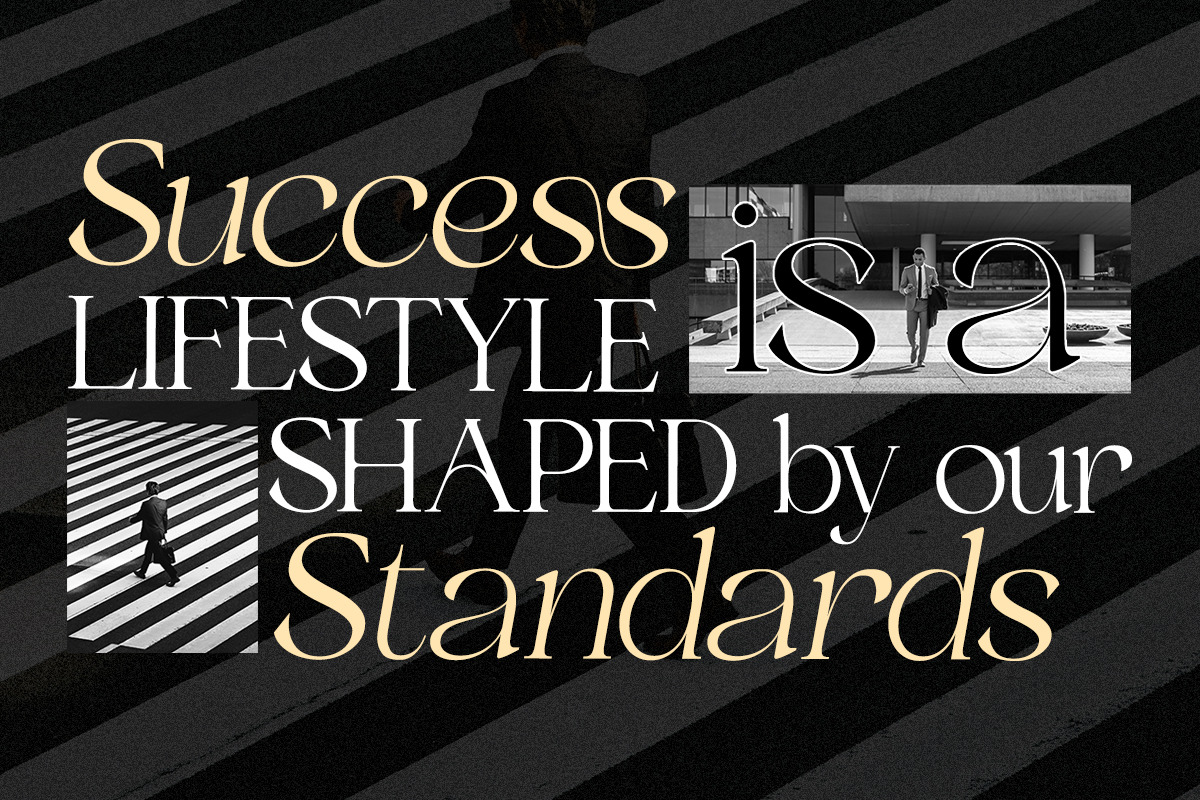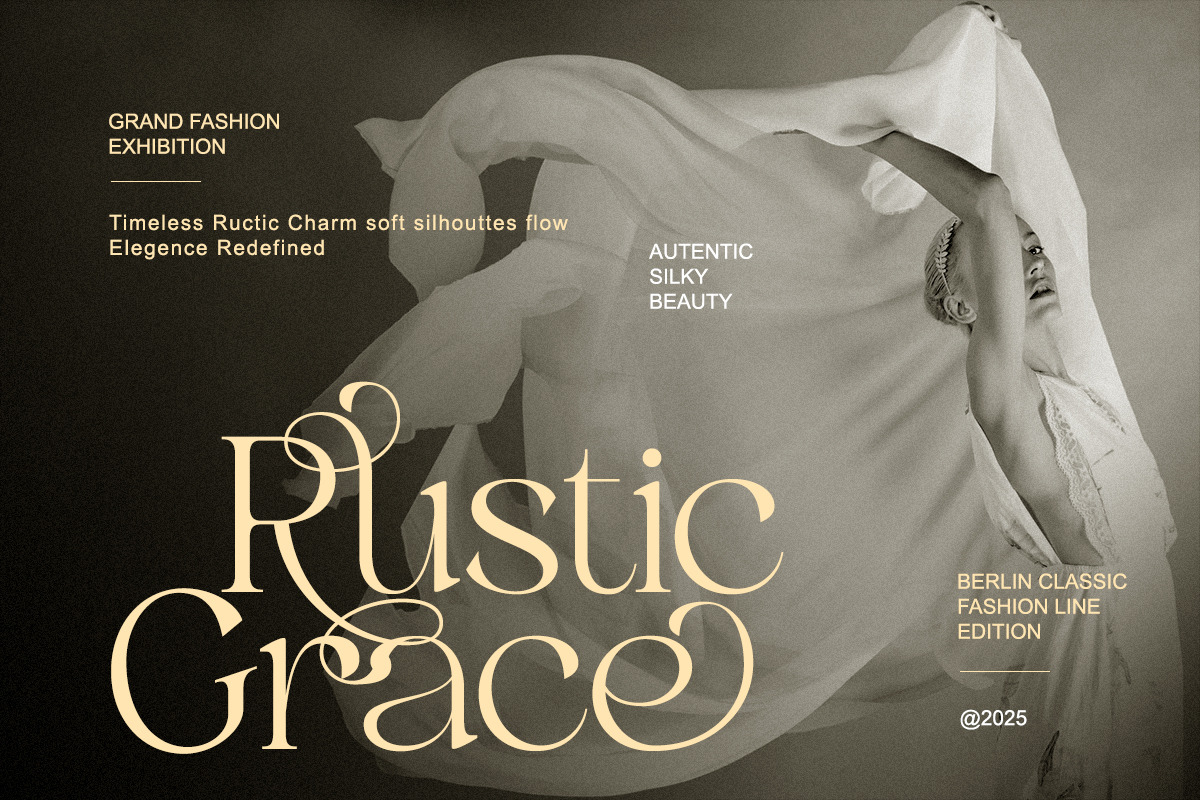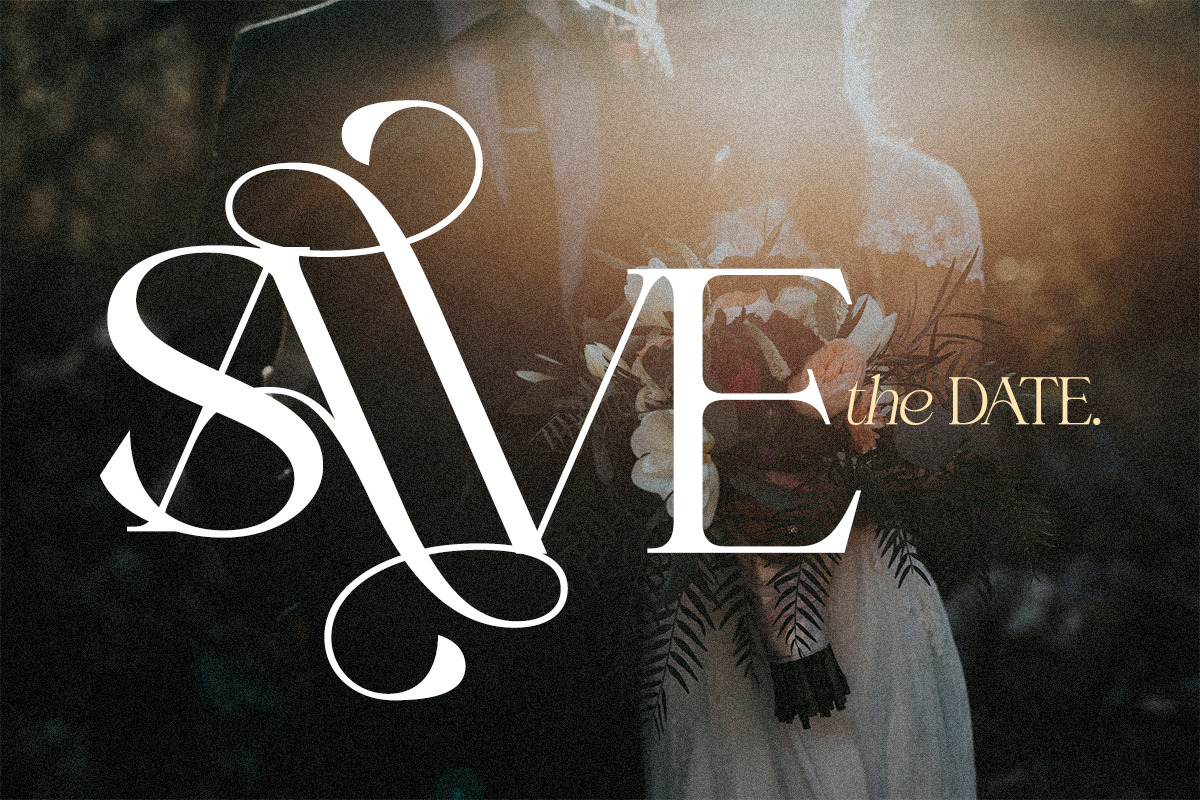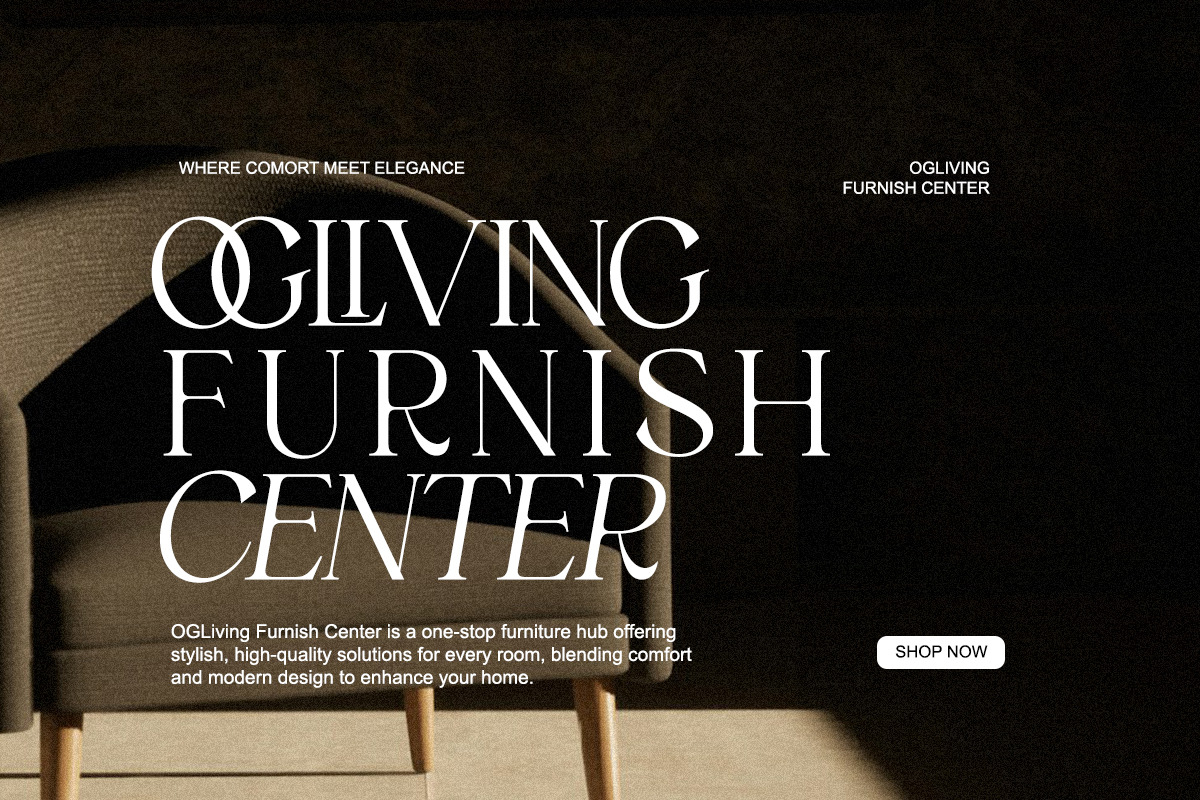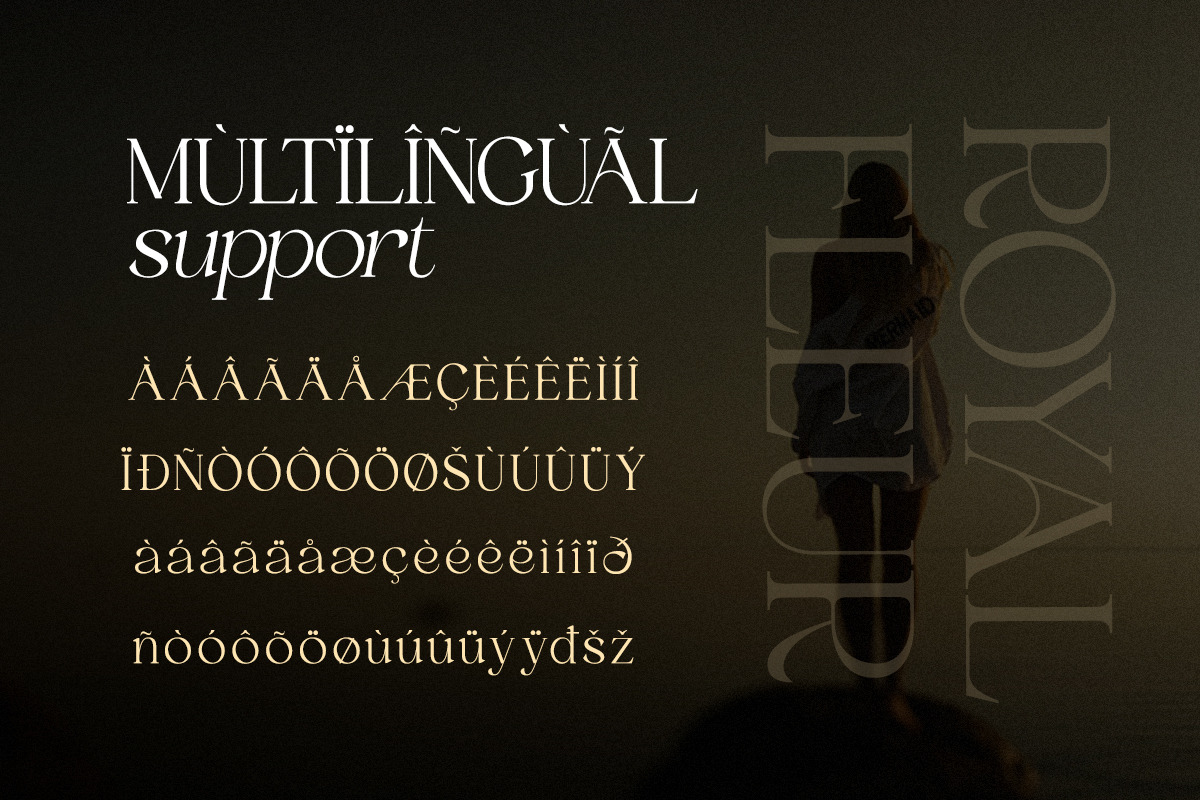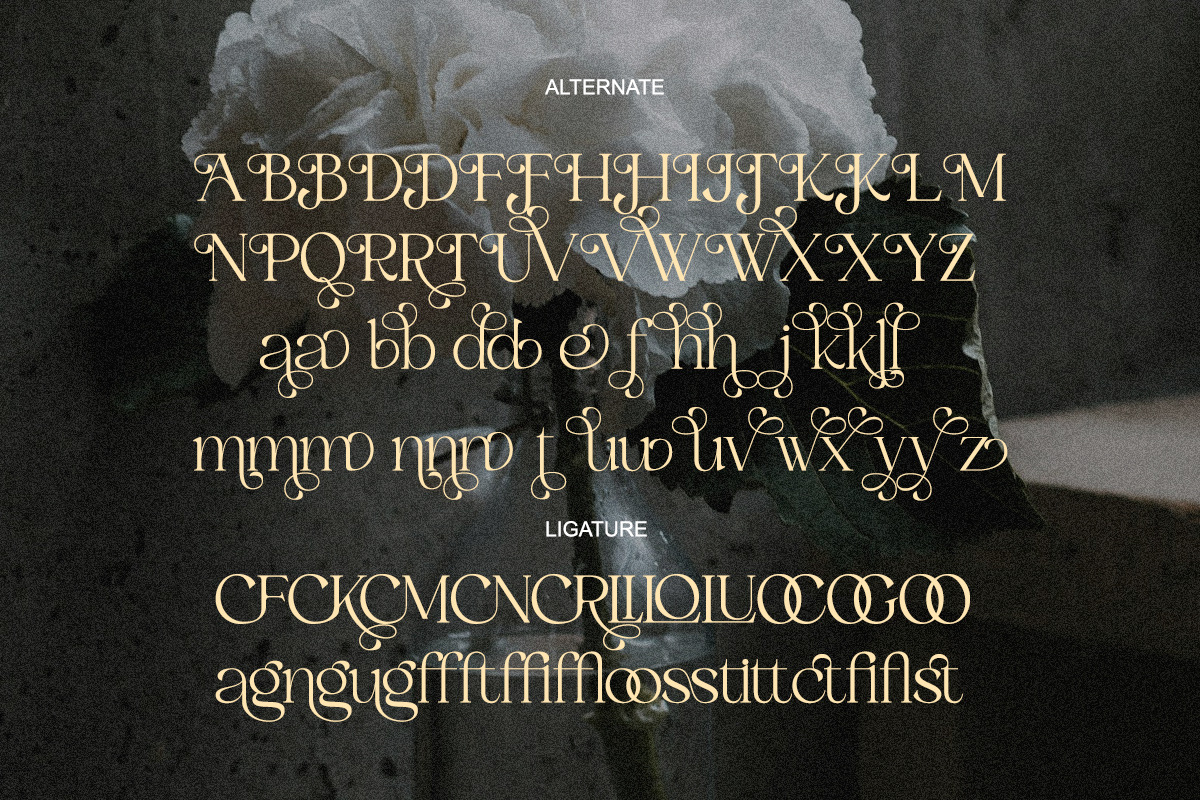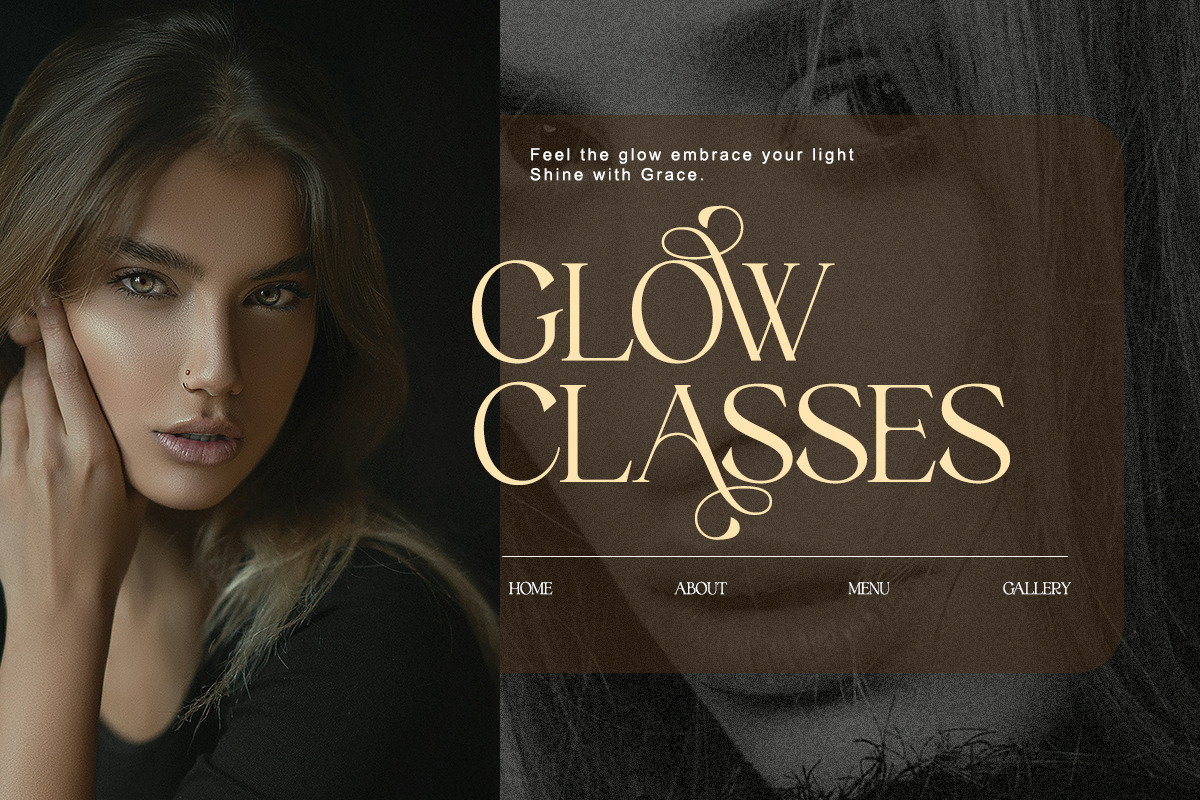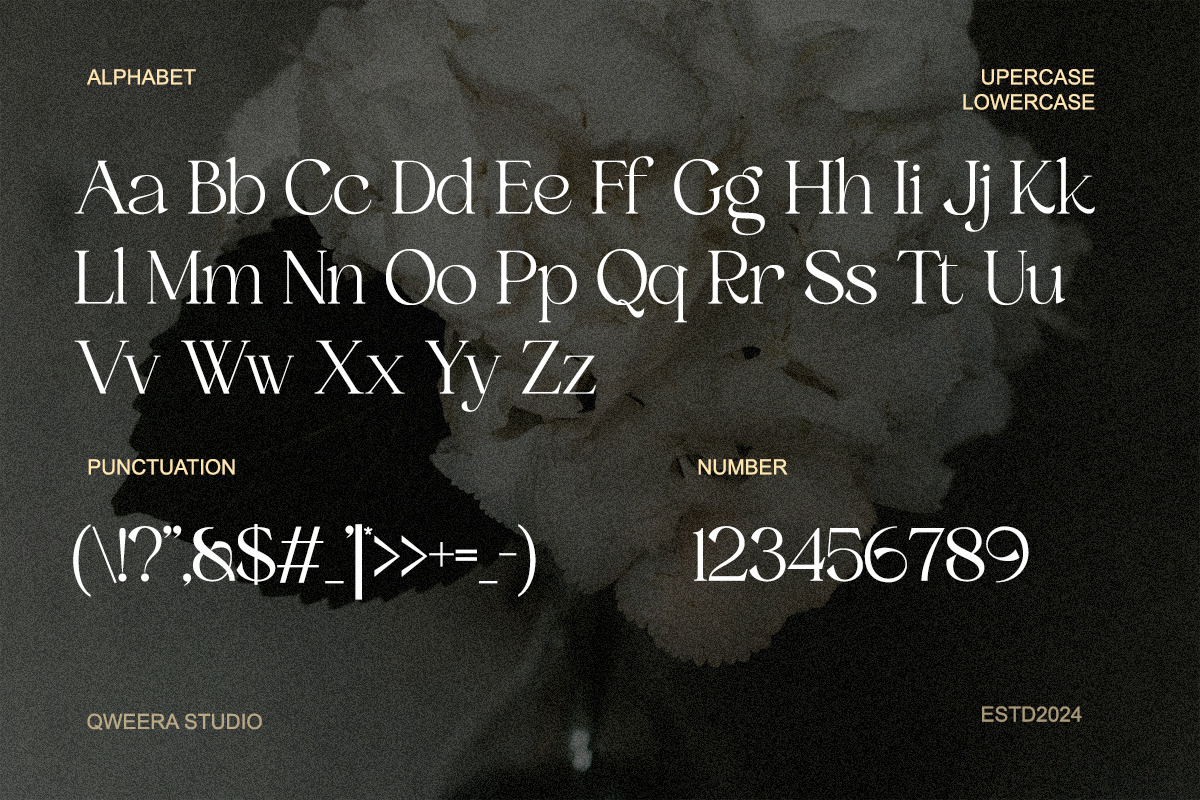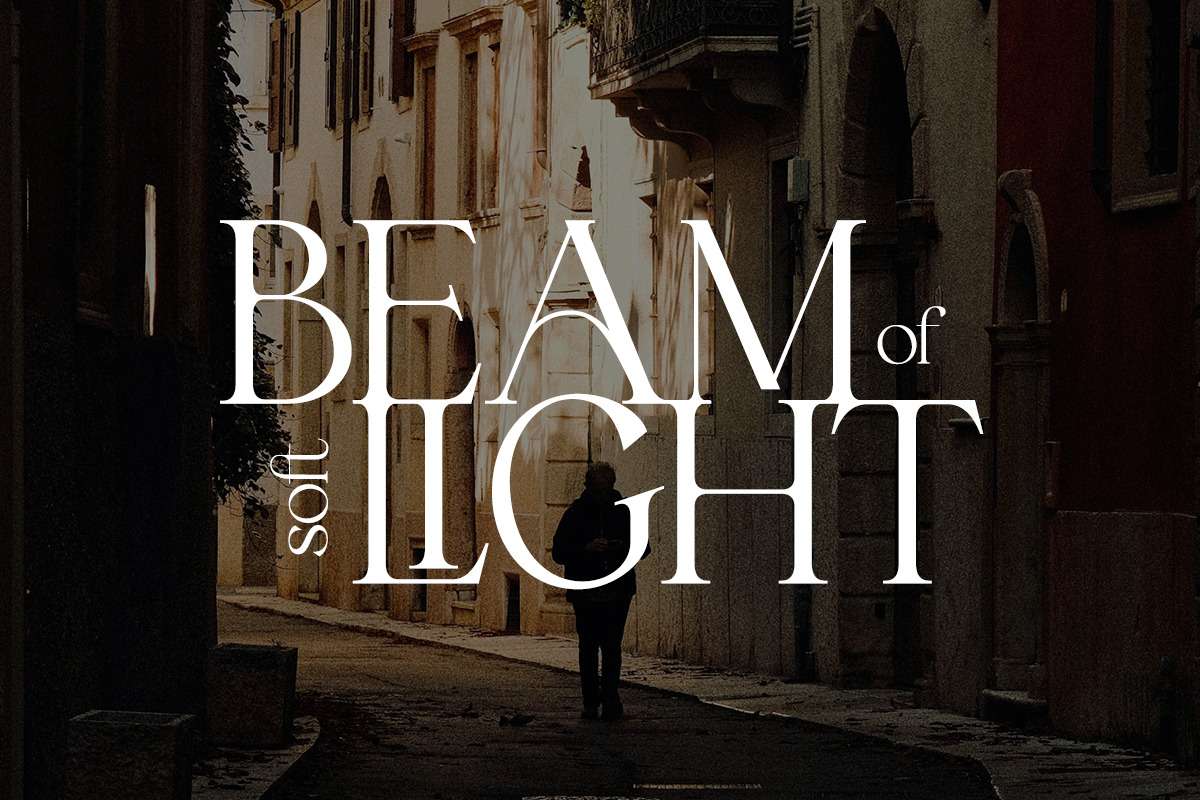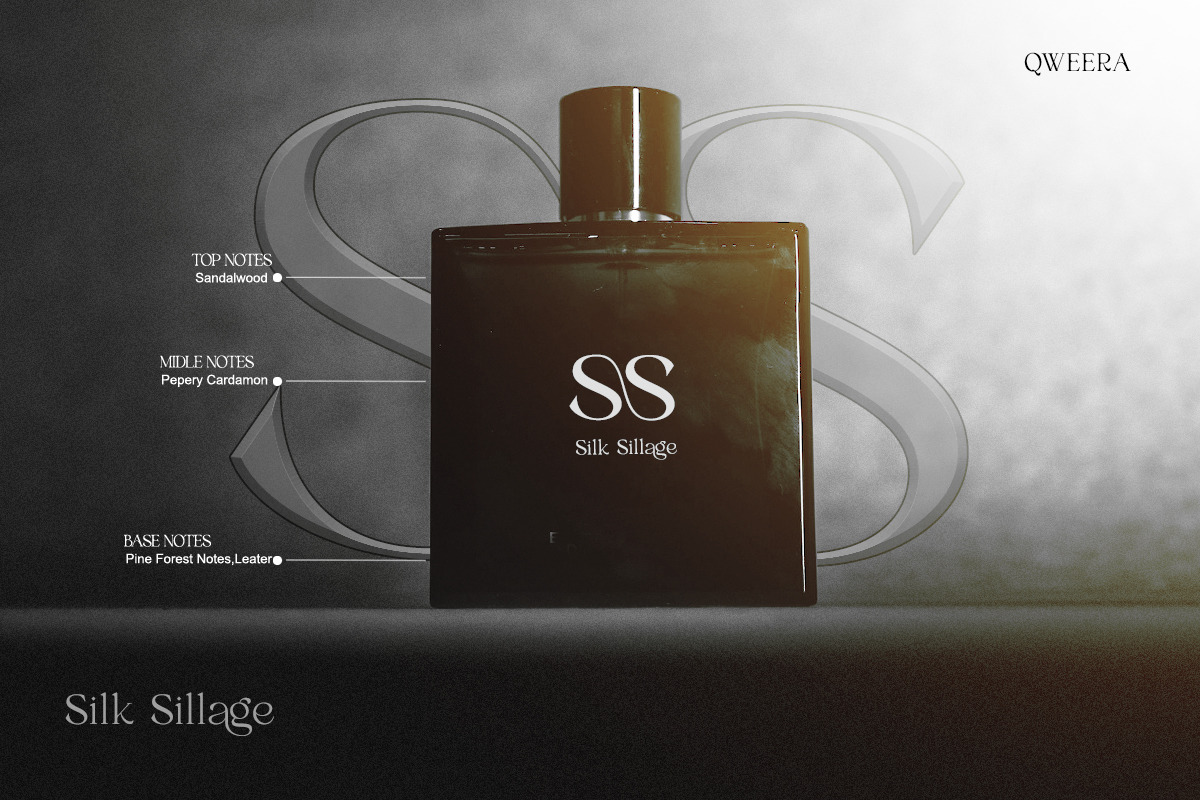
Royal Fleur - Elegant Luxury Serif
Royal Fleur - Elegant Luxury Serif Font for Regal Branding
Royal Fleur is a majestic serif typeface that exudes aristocratic elegance with its refined curves and sophisticated details. Featuring both Regular and Italic styles with royal alternates and ligatures, this font is meticulously crafted for premium branding, luxury logos, high-end packaging, and editorial designs fit for royalty.
Where Regal Elegance Meets Contemporary Luxury
With its ornamental serifs and graceful italic variant, Royal Fleur delivers exceptional versatility for elite brands. The carefully designed alternates and ligatures enable flawless typographic compositions that radiate sophistication and nobility.
Royal Features Include:
- Luxury Serif Design – Ornamental letterforms with royal flair
- Dual Style Versions – Regular & italic for majestic pairings
- Exclusive Alternates – 25+ aristocratic character variations
- Regal Ligatures – Seamless royal letter connections
- Universal Application – From palace invitations to luxury billboards
- Extended Latin Support – Complete noble character set
Elevate Your Brand with Royal Fleur's Aristocratic Charm Ideal for:
- Luxury jewelry branding
- High-end perfume packaging
- Premium hotel identities
- Elite fashion editorials
- Royal event stationery